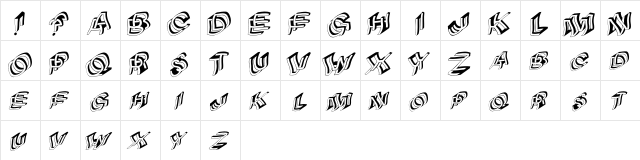
ArchiBetaWindy Regular
Design Context for ArchiBetaWindy Typeface
ArchiBetaWindy is a composed and adaptable typeface that performs quietly and consistently across a wide range of design contexts.